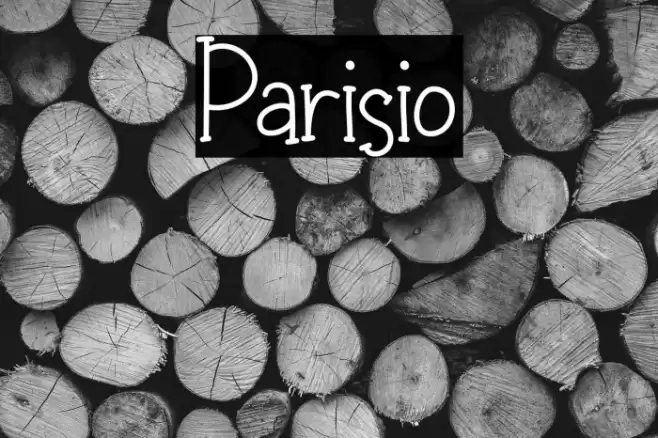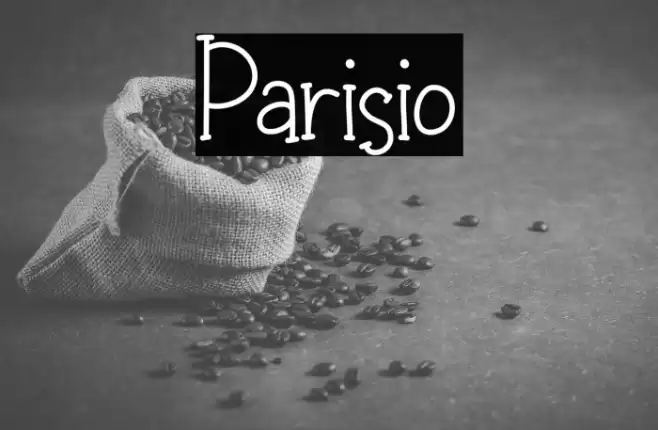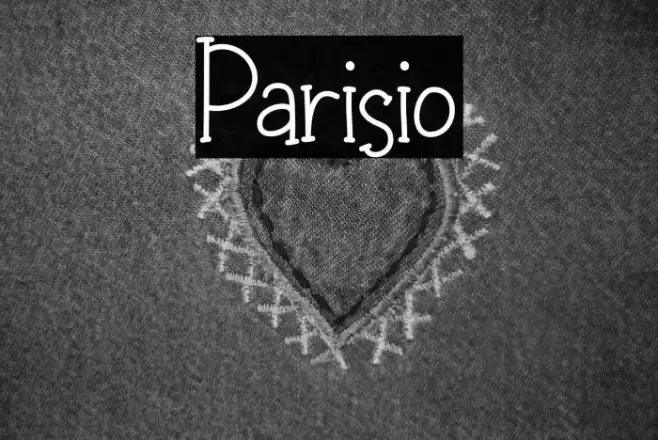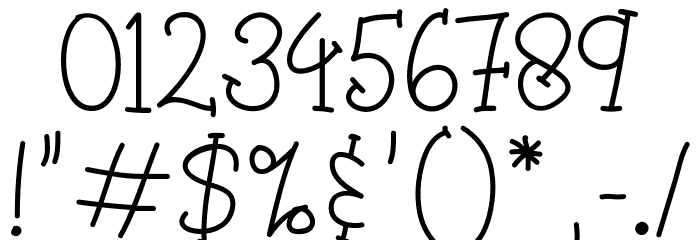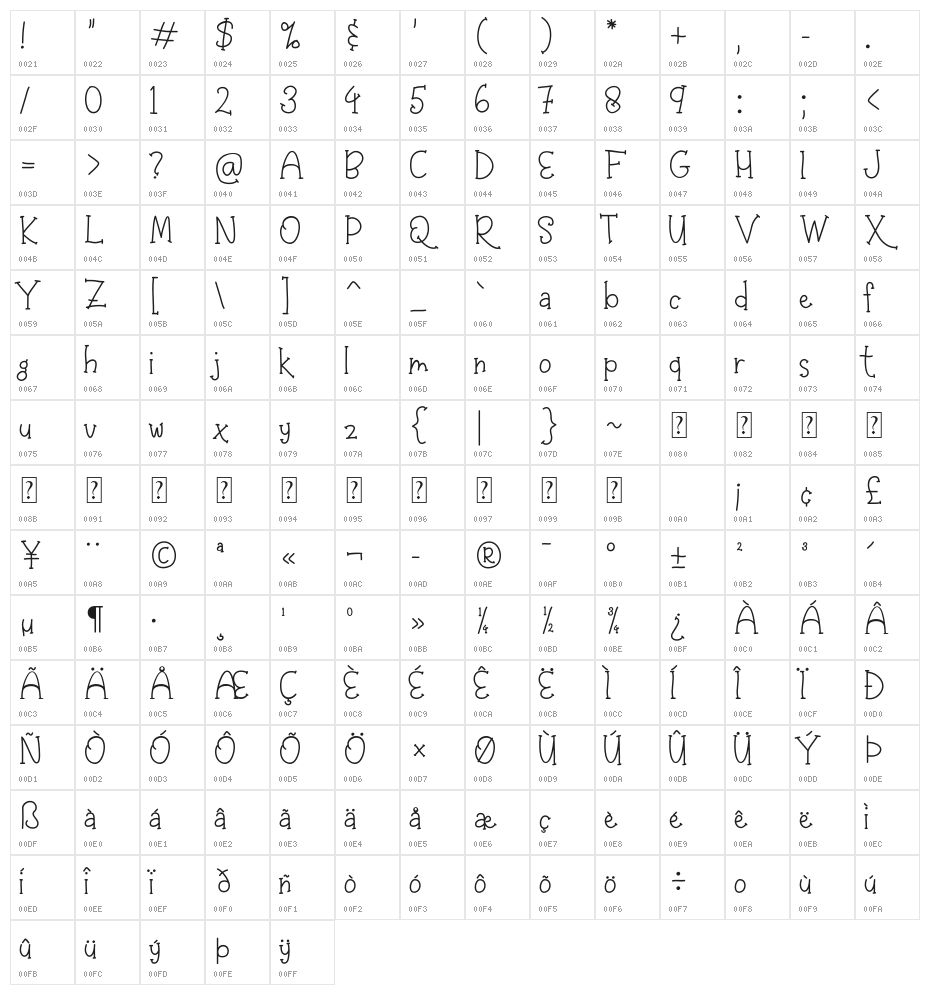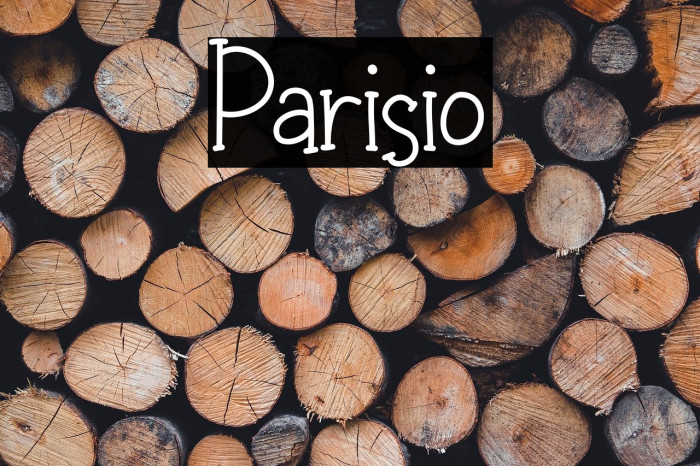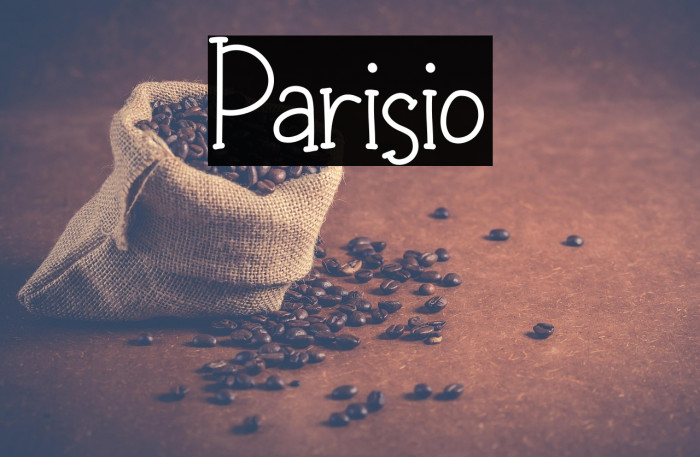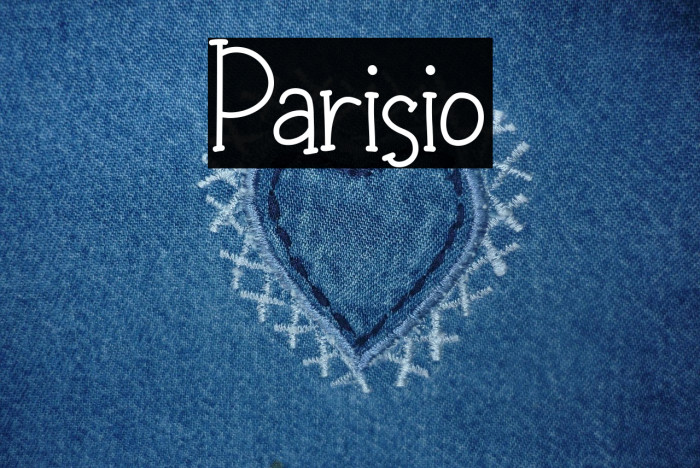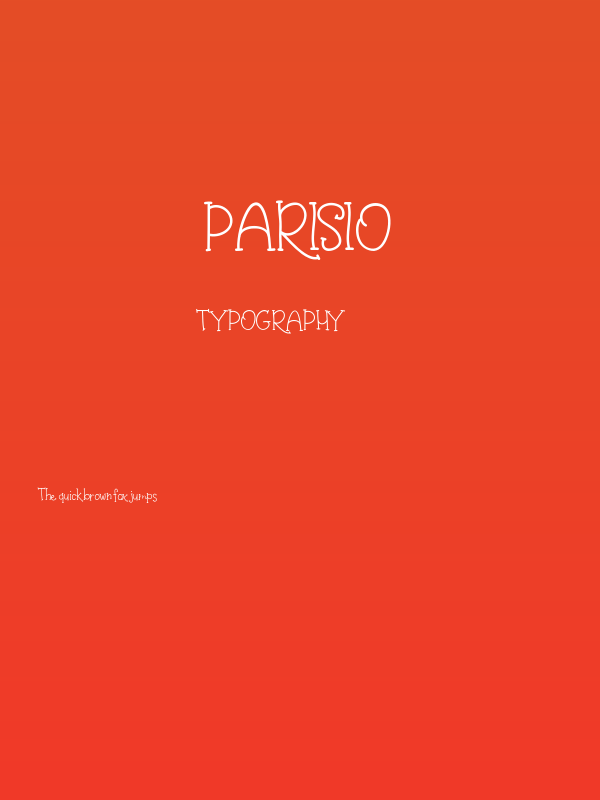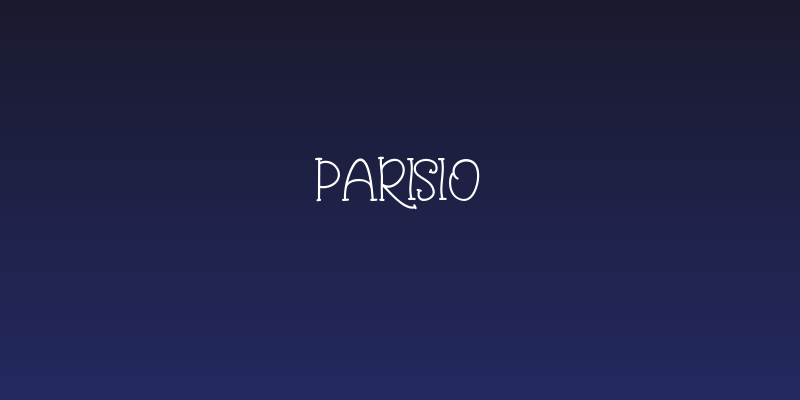
Parisio Font
Parisio Description
This font features a playful and whimsical style, characterized by its hand-drawn appearance. The letters have a casual, informal look with irregular strokes and slight variations in size and shape, giving it a unique and friendly personality. The uppercase and lowercase letters maintain a consistent style, with rounded edges and a slightly uneven baseline that adds to its charm. The numerals and special characters follow the same playful design, making it suitable for creative and fun projects. The overall appearance is approachable and lively, making it ideal for designs that aim to convey a sense of joy and creativity.
A playful, hand-drawn font with a whimsical and friendly style from Regular fonts.
- Proposed Projects: Children's books, greeting cards, playful branding, and creative invitations.
- Overall Style: Playful
- Use Case: Headlines, Logos, Invitations